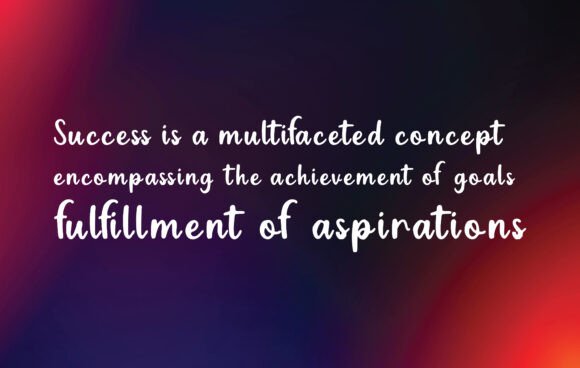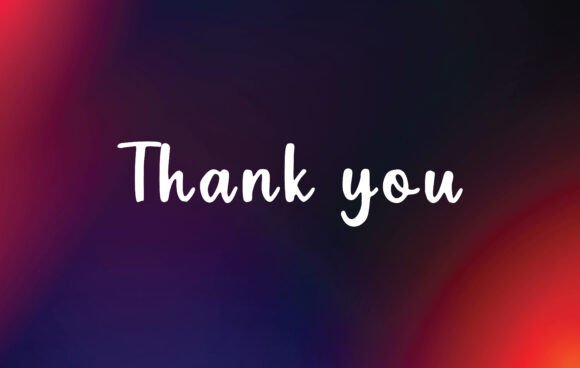
Discover the Beauty of Giovanni Font: Elevate Your Designs with this Stunning Handwritten Font
Are you a designer or crafter looking for a font that can take your creative ideas to the next level? Look no further than Giovanni Font, a lovely and beautiful handwritten font that is sure to impress. With its unique and elegant style, Giovanni Font is the perfect choice for creating eye-catching logos, branding, and quotes that will leave a lasting impression on your audience.
The Characteristics of Giovanni Font
Giovanni Font is a carefully crafted handwritten font that boasts a range of characteristics that make it stand out from the crowd. Its flowing lines and delicate curves give it a sense of elegance and sophistication, making it perfect for designs that require a touch of refinement. The font’s unique style is also highly legible, making it easy to read and understand, even at small sizes.
The Benefits of Using Giovanni Font
So, why choose Giovanni Font for your design projects? Here are just a few benefits of using this stunning handwritten font:
- Elegance and Sophistication: Giovanni Font adds a touch of elegance and sophistication to any design, making it perfect for high-end branding and luxury products.
- Versatility: This font is highly versatile and can be used for a wide range of design projects, from logos and branding to quotes and social media graphics.
- Legibility: Giovanni Font is highly legible, even at small sizes, making it perfect for designs that require a lot of text.
- Uniqueness: With its unique and distinctive style, Giovanni Font is sure to help your designs stand out from the crowd.
How to Use Giovanni Font in Your Designs
Using Giovanni Font in your designs is easy. Here are a few tips to get you started:
- Pair it with Other Fonts: Giovanni Font works beautifully with other fonts, so don’t be afraid to experiment with different pairings to create a unique look.
- Use it for Headings and Titles: The font’s elegant style makes it perfect for headings and titles, where it can add a touch of sophistication and refinement.
- Experiment with Colors: Giovanni Font looks great in a range of colors, so don’t be afraid to experiment with different colors to find the perfect look for your design.
Why Designers and Crafters Love Giovanni Font
Giovanni Font has quickly become a favorite among designers and crafters, and it’s easy to see why. Here are just a few reasons why this font has become so popular:
- High-Quality Design: Giovanni Font is a high-quality font that has been carefully crafted to provide a unique and elegant look.
- Ease of Use: The font is easy to use and can be easily integrated into a wide range of design projects.
- Support for Creative Projects: Giovanni Font is the perfect choice for designers and crafters who want to create unique and eye-catching designs that will help them stand out from the crowd.
In conclusion, Giovanni Font is a stunning handwritten font that is sure to elevate your designs to the next level. With its unique and elegant style, high legibility, and versatility, this font is perfect for a wide range of design projects, from logos and branding to quotes and social media graphics. Whether you’re a designer or crafter, Giovanni Font is a must-have font that will help you create beautiful and eye-catching designs that will leave a lasting impression on your audience.